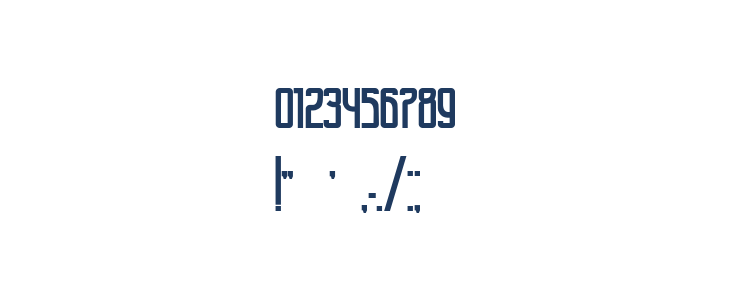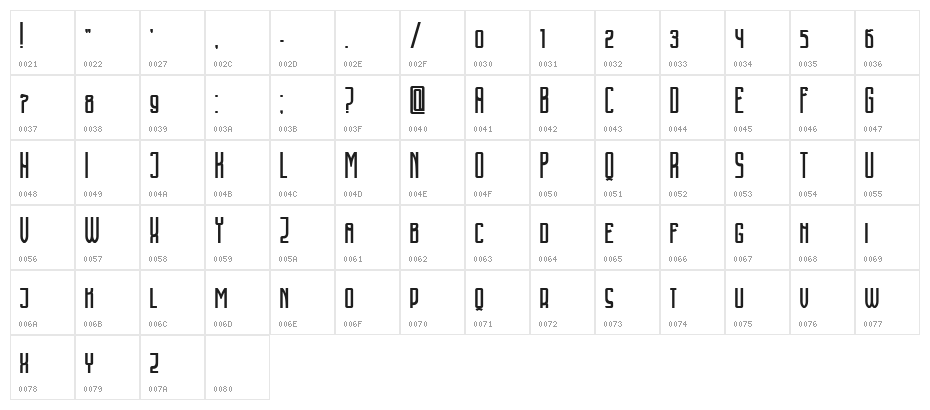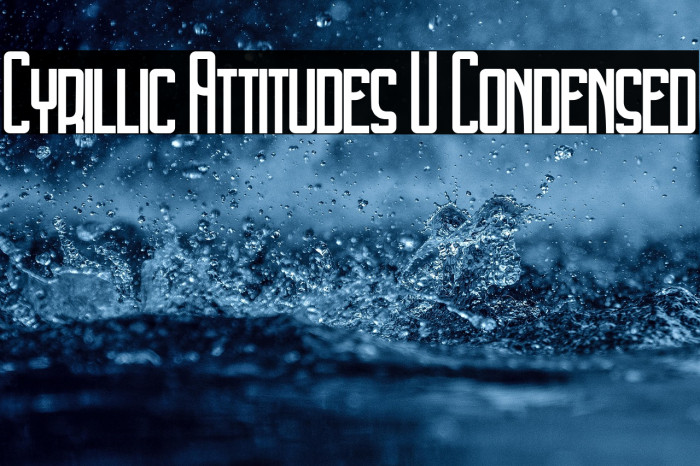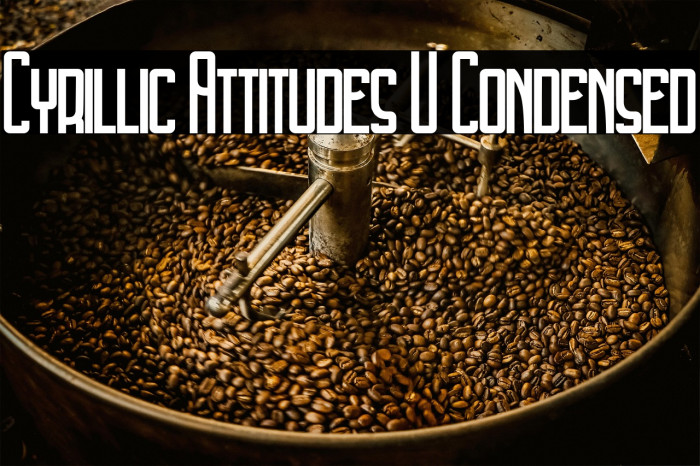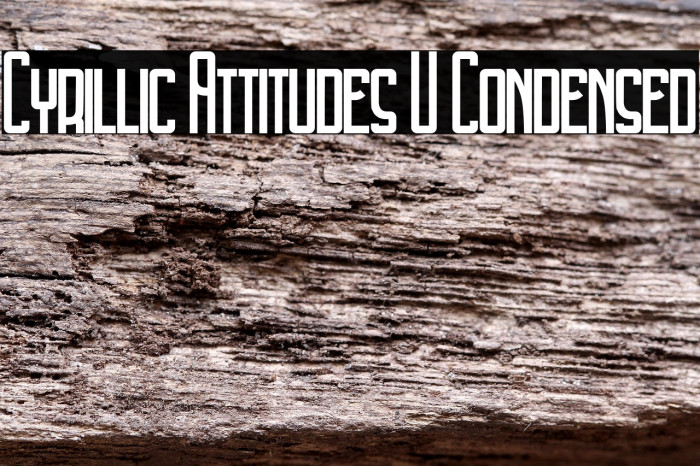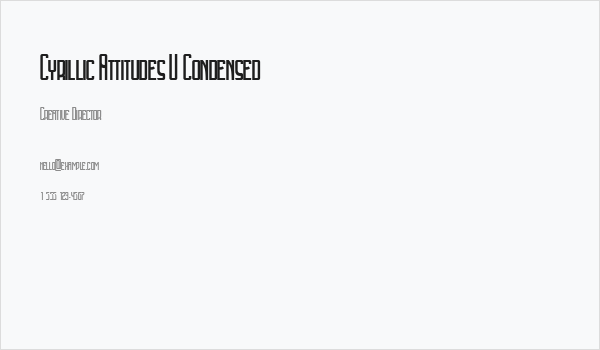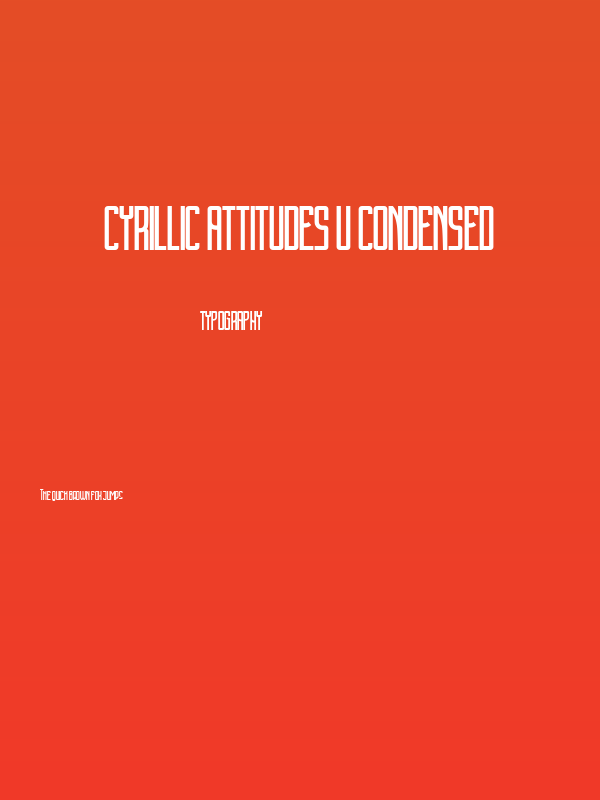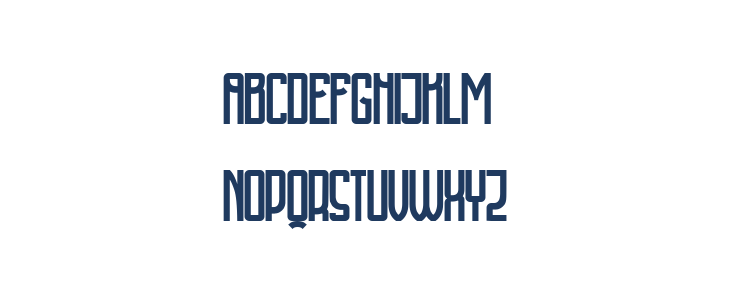
Cyrillic Attitudes U Condensed Font
Cyrillic Attitudes U Condensed Description
This font features a bold and condensed style with a modern, geometric aesthetic. The uppercase and lowercase letters are designed with a tall, narrow structure, creating a striking and impactful appearance. The characters exhibit a consistent vertical alignment, enhancing the condensed look. The numerals follow the same design principles, maintaining uniformity across the font. Special characters are included, each crafted to match the overall style. The font's clean lines and sharp angles make it suitable for contemporary design projects.
| Proposed Projects | Ideal for posters, headlines, branding, and modern graphic design projects. |